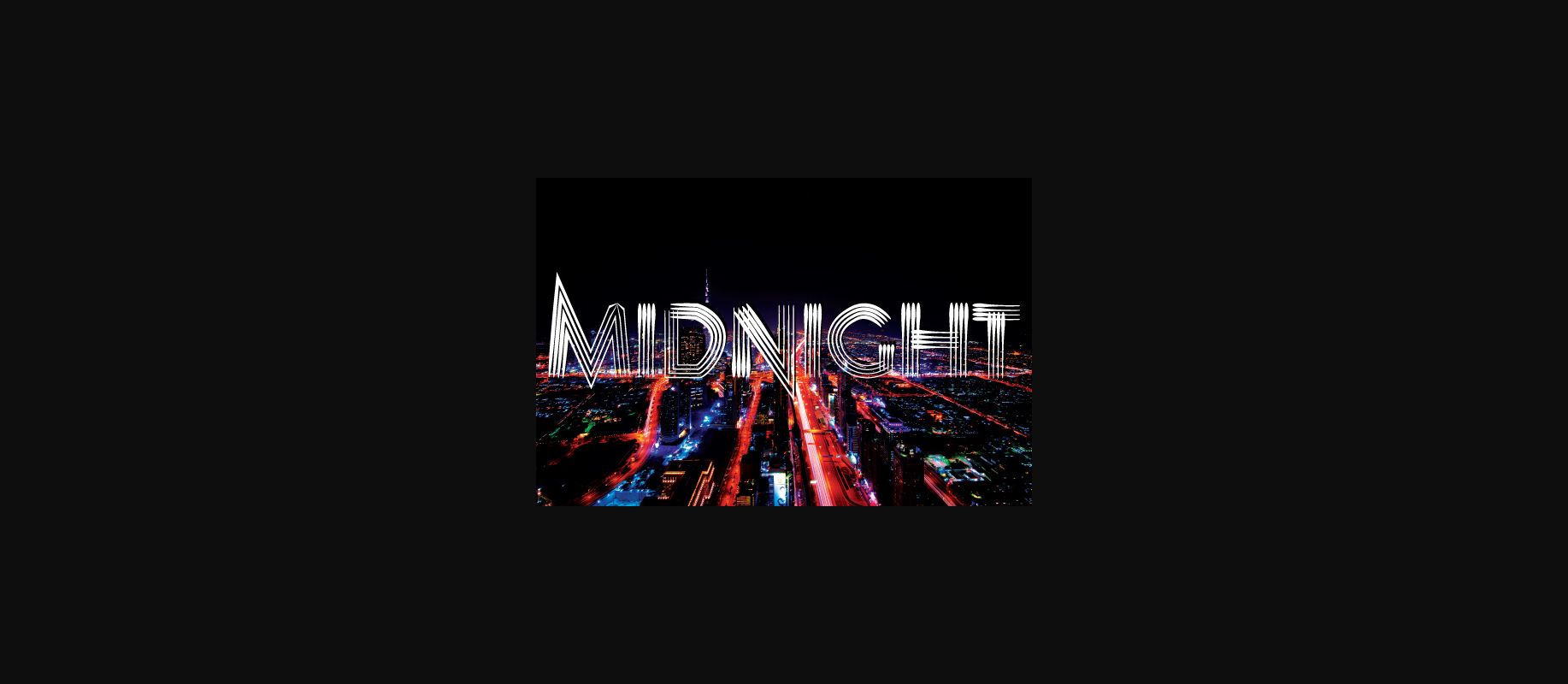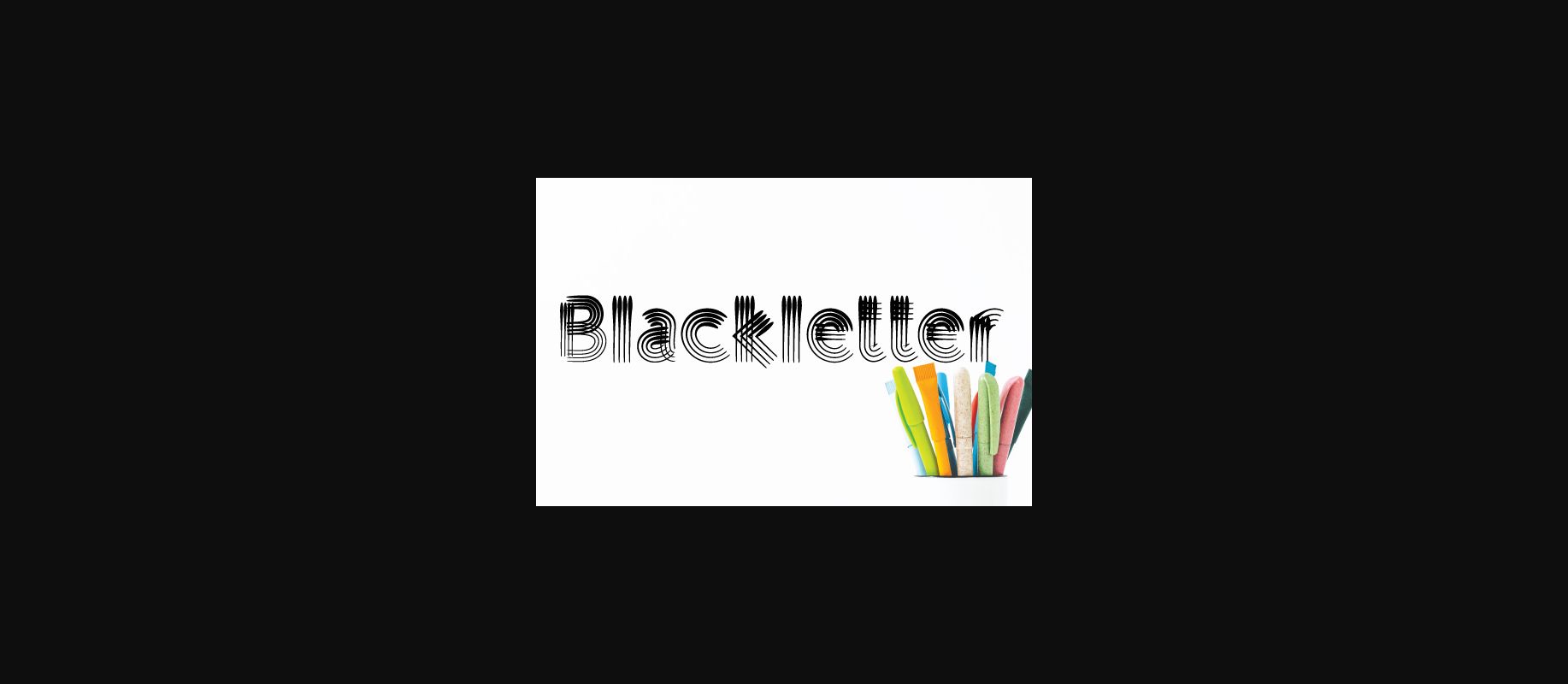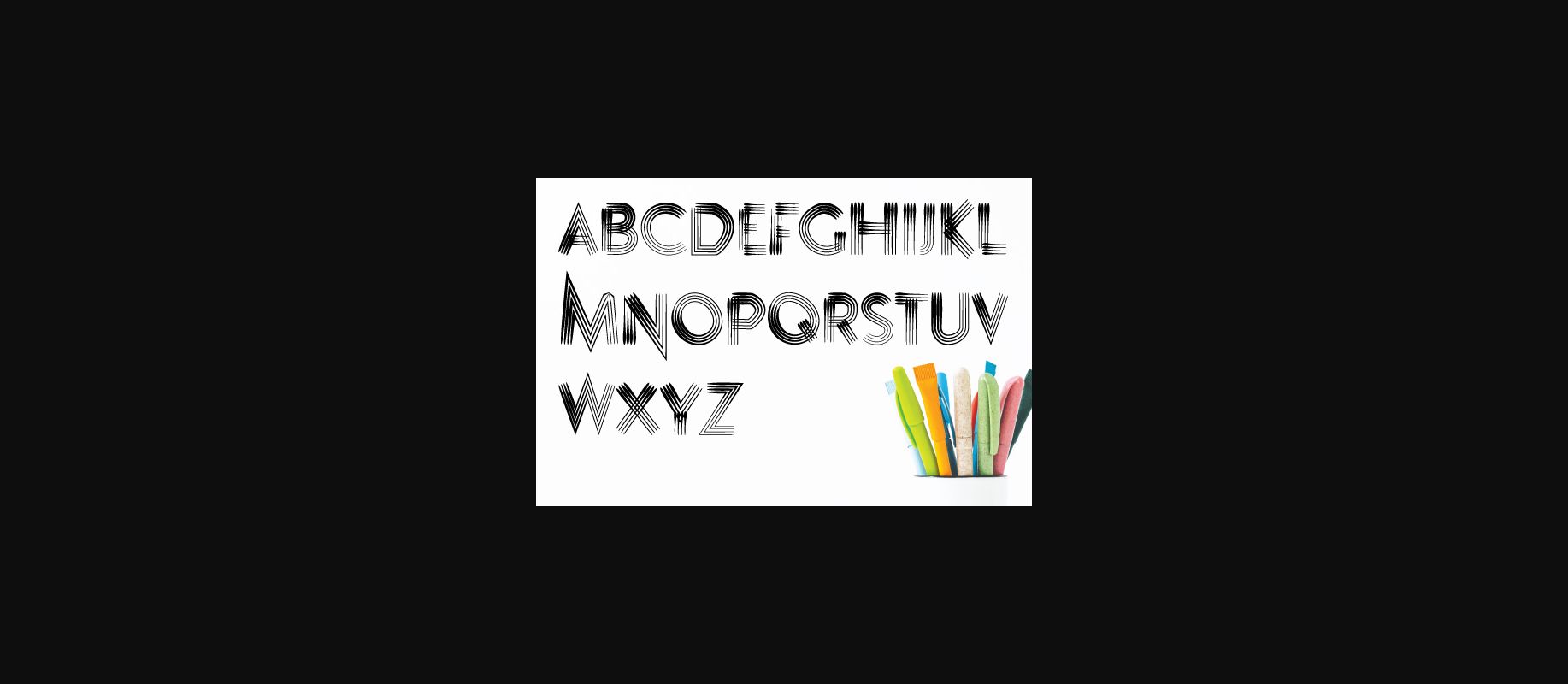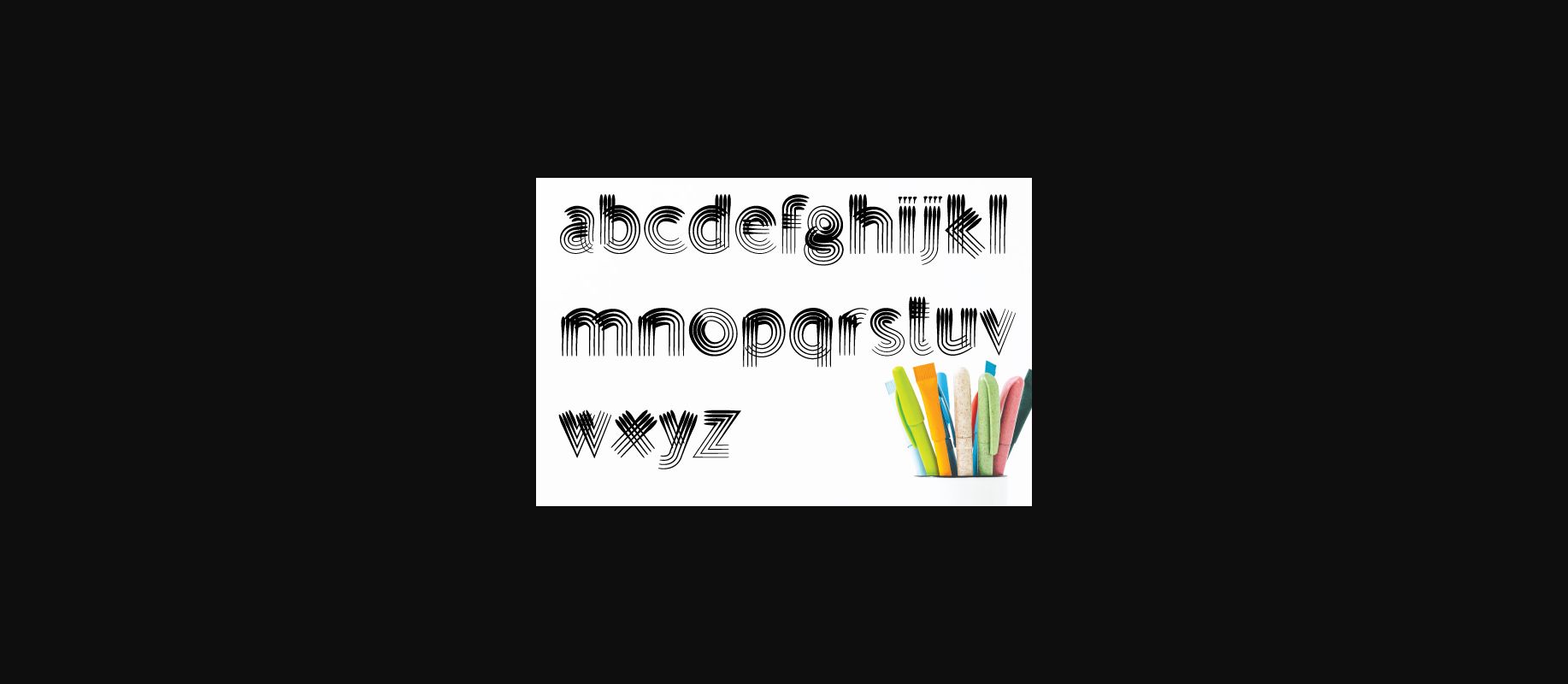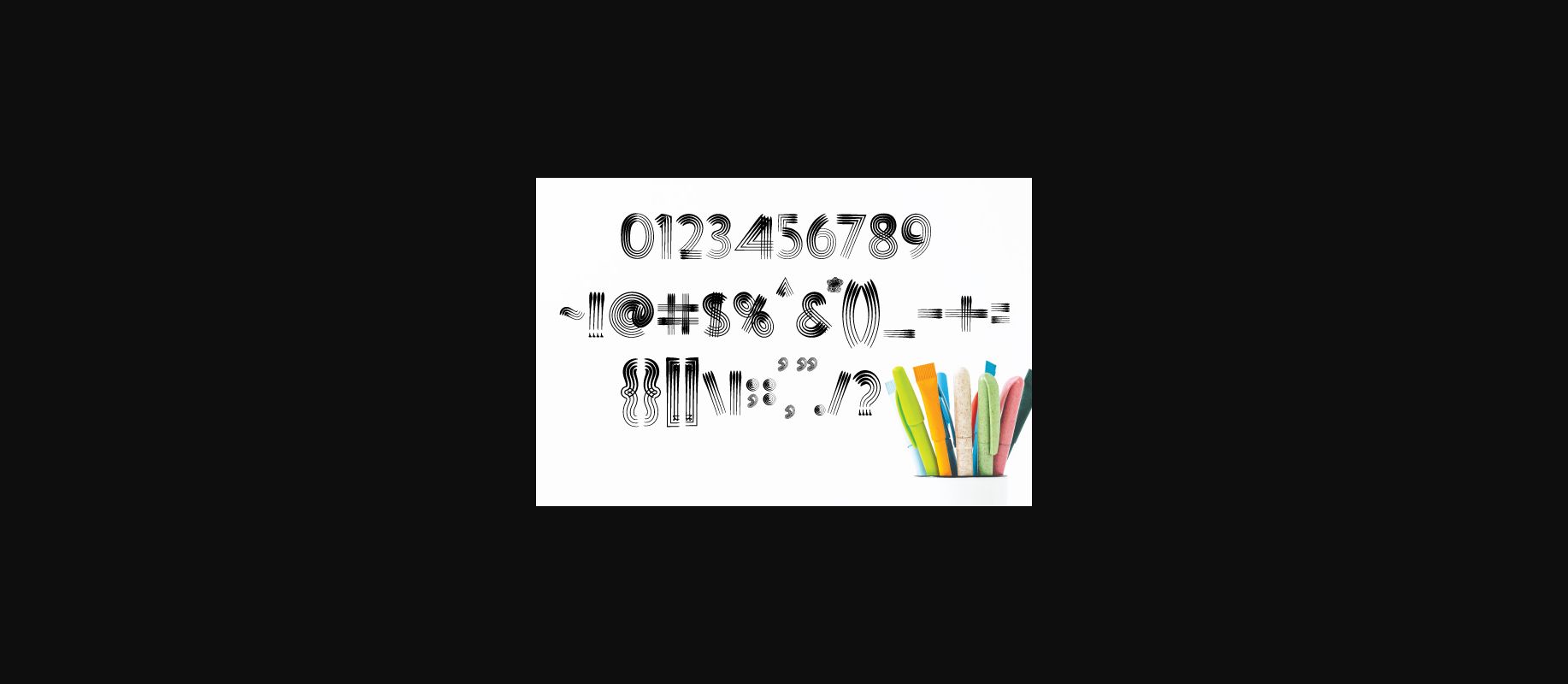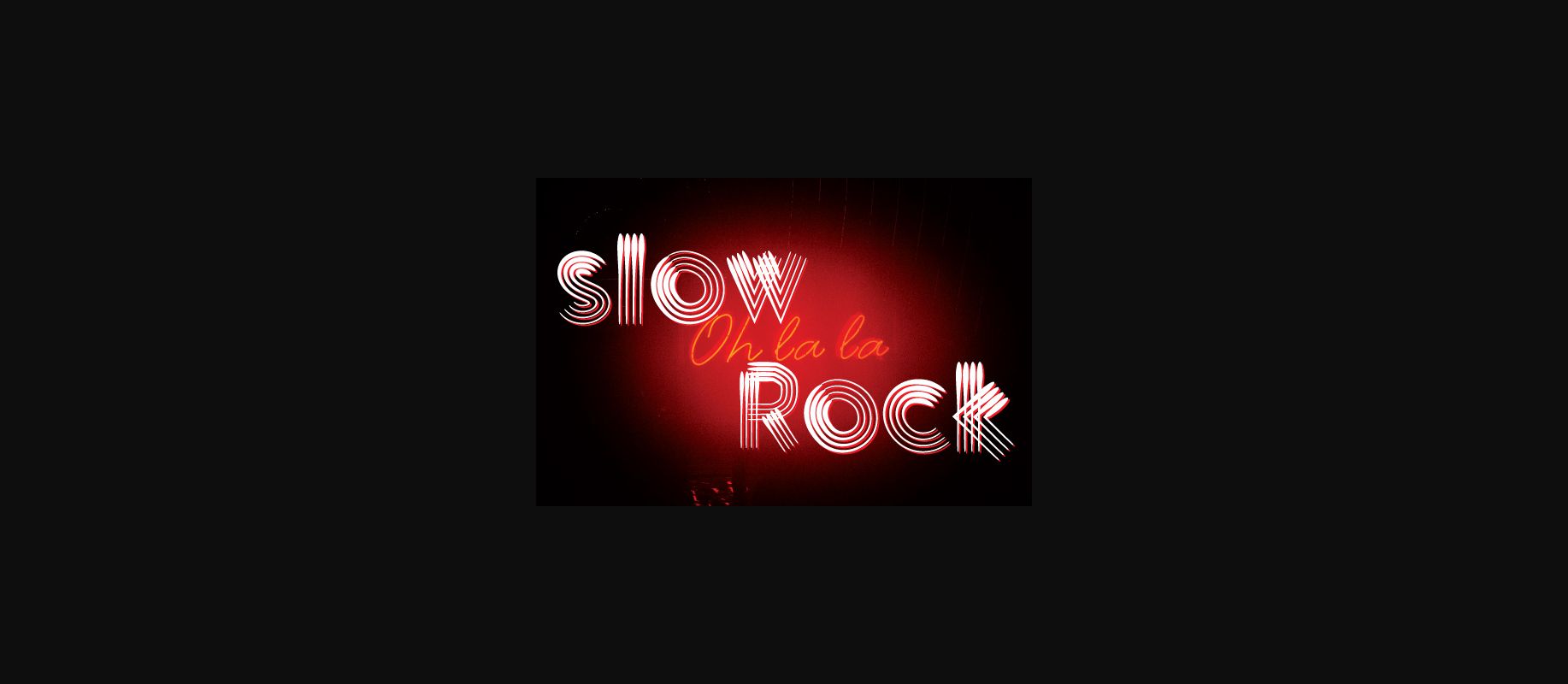
Midnight Font
About Midnight Font
Midnight is a cool and trendy decorative font. Expertly designed to make your creation look out of this world, this font has the potential to take your creative ideas far further.